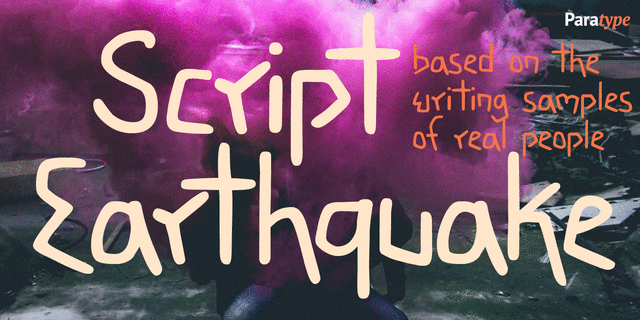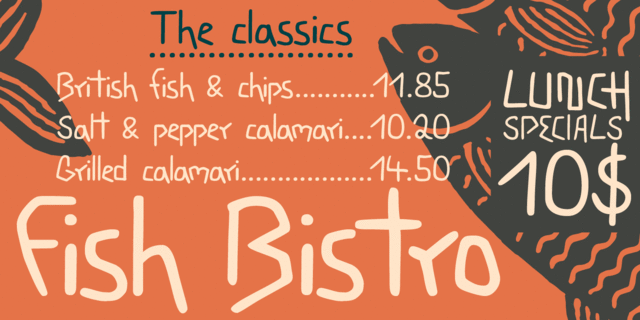
PT Earthquake (1 font)
About PT EarthquakeScript Earthquake was developed for the series of handwriting fonts based on writing samples of real people. The font delivers natural sincere touch and can magically convert any annoying advertising text into intimate advice of your good friend. The first version of the font in Latin was launched in 1998. Cyrillic extention was made by Gennady Fridman and released in 2009.
Associations for font family PT EarthquakeTypeface personality and character:
nervous, alarming, slovenly, angular, terrible, cutting, unstable, agile, party, clubbing, broken, cheerful, crazy, strange, cartoonish, bizarre, foolish, stupid, horrific, creepy, student, yelling, vernacular, macabric, madcap, dynamic, quick-tempered, incendiary